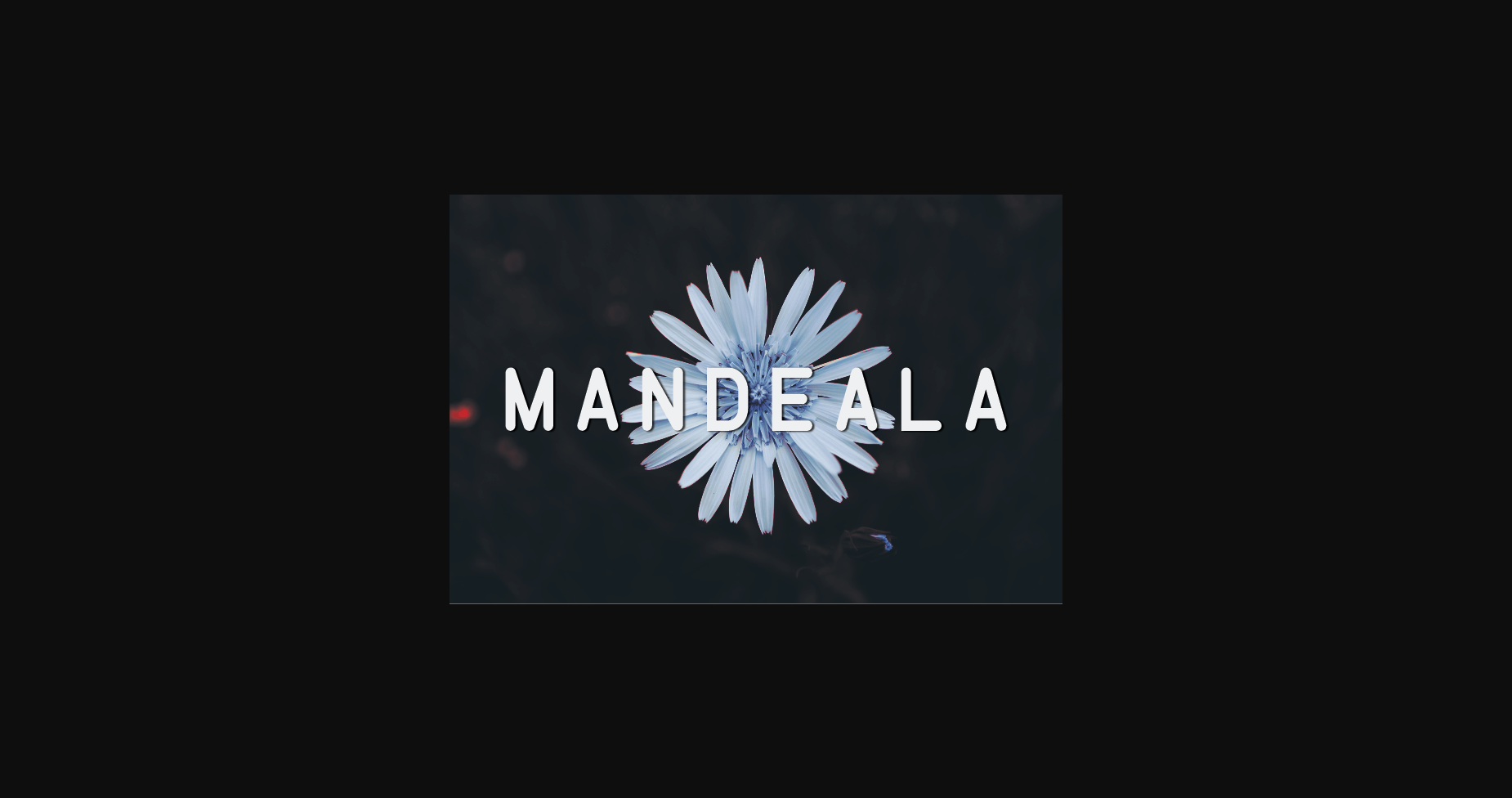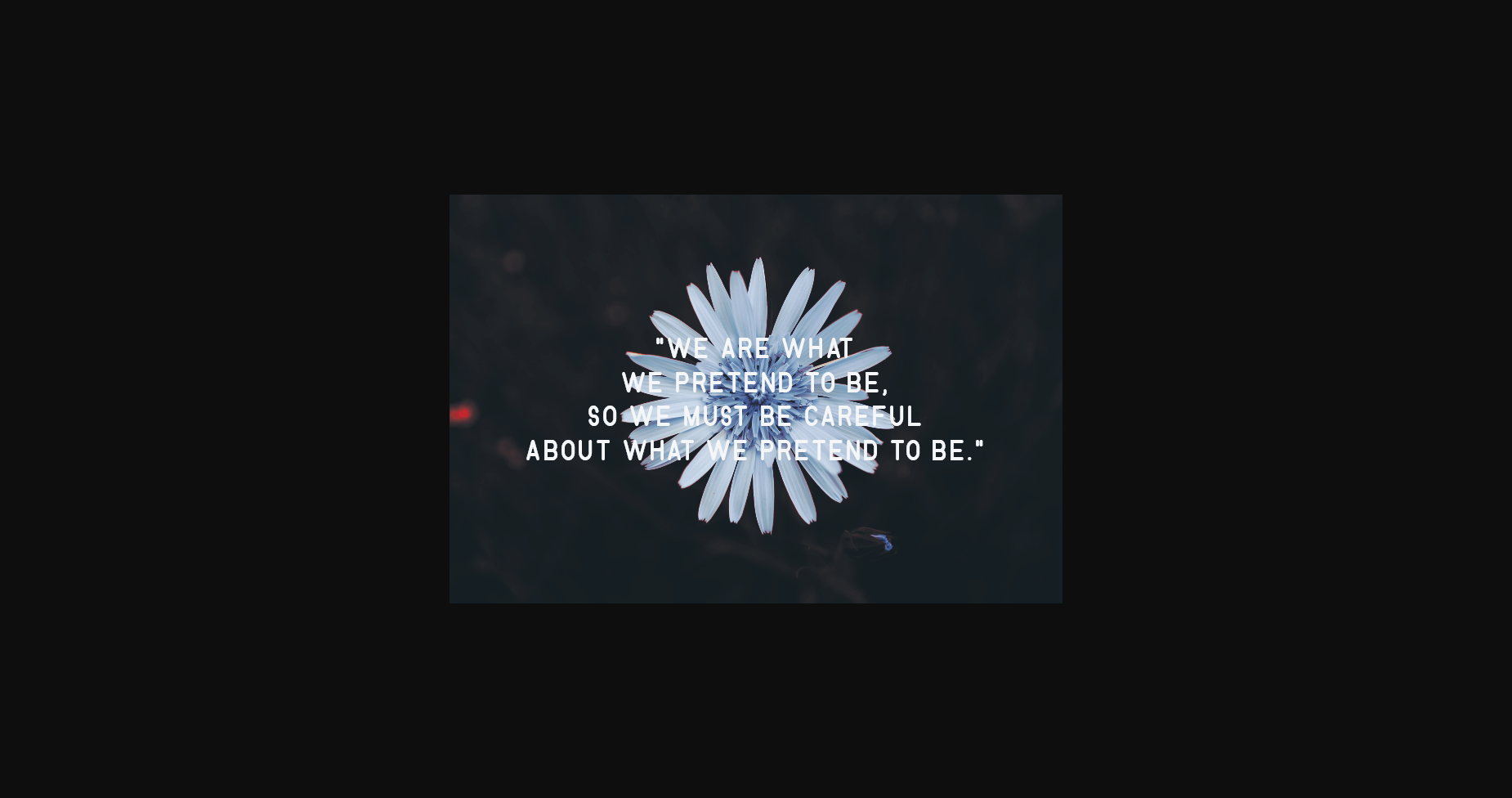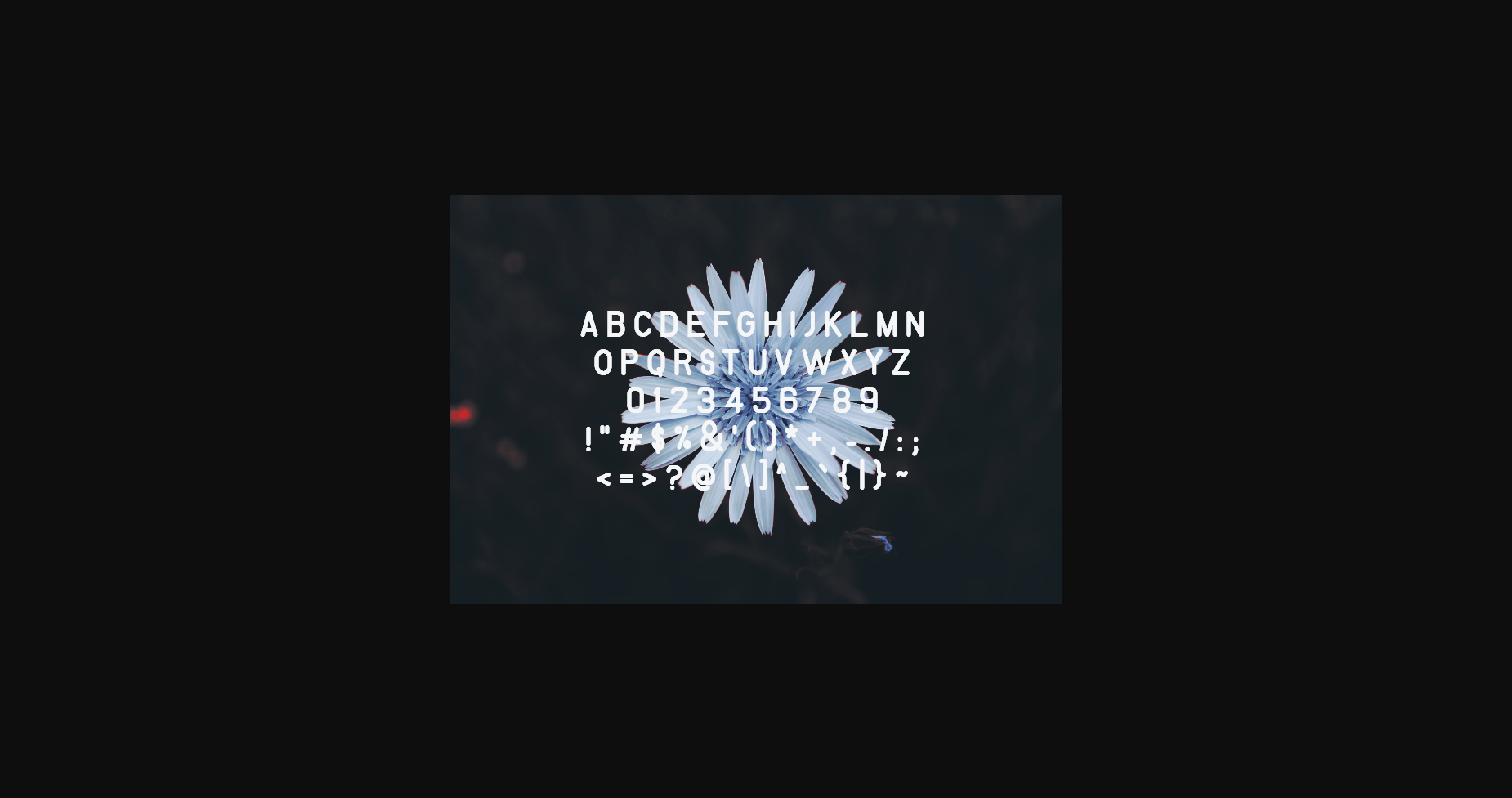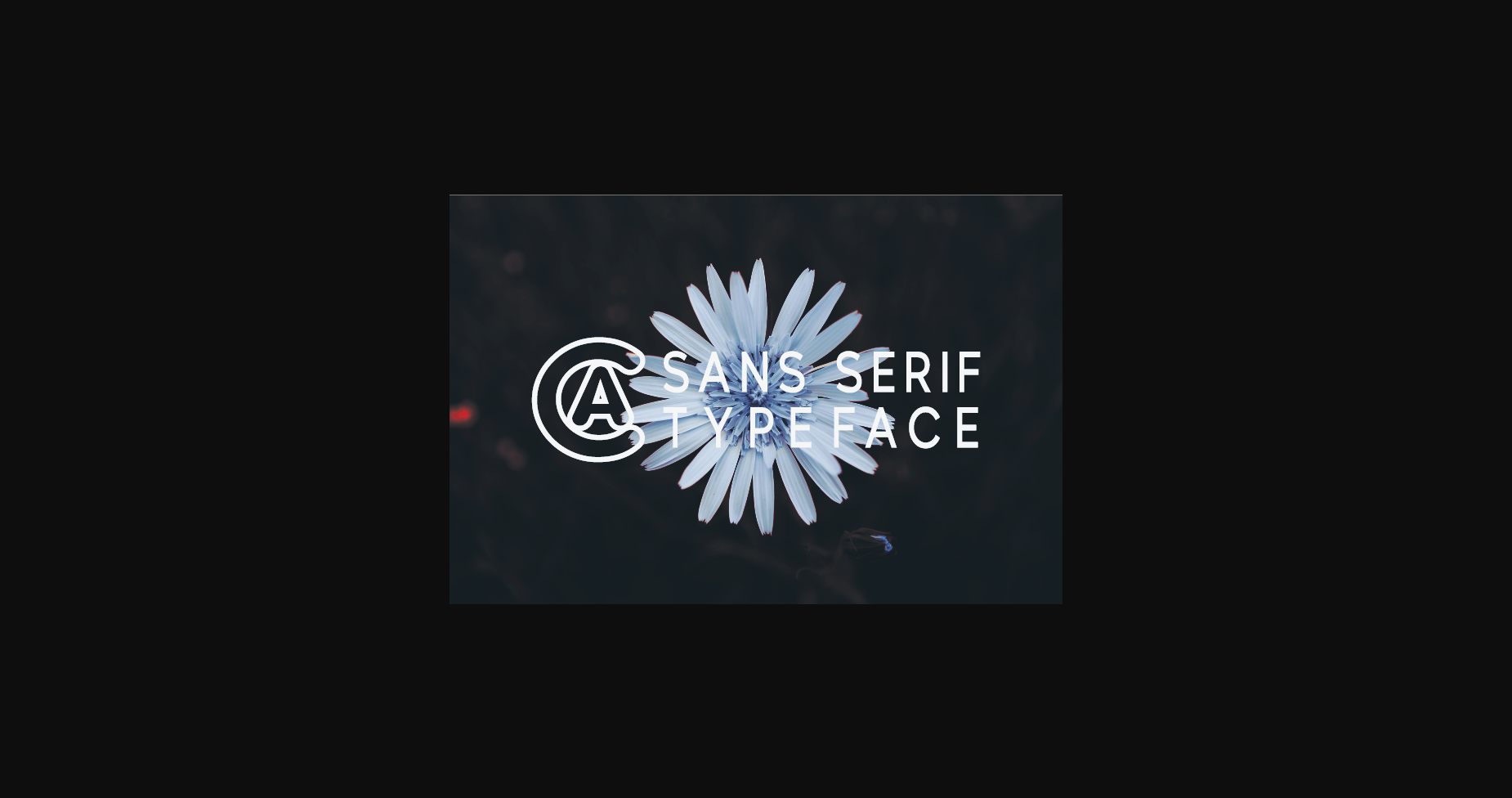
Mandeala Font
About Mandeala Font
Mandeala is a modern and classy sans serif typeface. This extremely versatile font isperfect for logos, weddings, invitations, quotes, advertisements, print, magazines, and more!